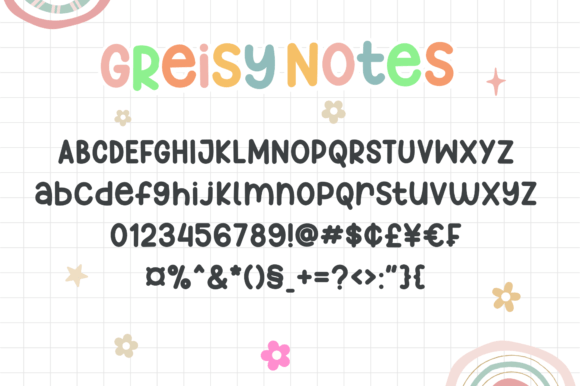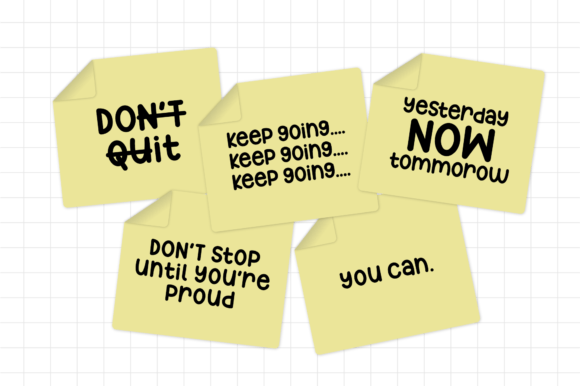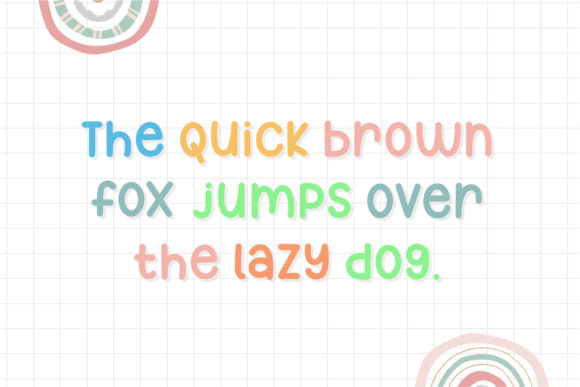
Introducing Greisy Notes Font: The Ultimate Handwritten Display Font for Designers and Crafters
Are you tired of using the same old fonts for your digital designs, crafts, and presentations? Look no further! Greisy Notes Font is here to revolutionize your creative projects with its cute and playful handwritten display style. This versatile font is perfect for a wide range of applications, from greeting cards to digital art, and is sure to become your new favorite go-to font.
What Makes Greisy Notes Font So Special?
Greisy Notes Font boasts a unique and charming handwritten style that is both modern and nostalgic. Its playful and carefree vibe makes it ideal for projects that require a personal touch. Whether you’re a designer, crafter, or simply a DIY enthusiast, this font is sure to inspire your creativity and add a touch of whimsy to your work.
Perfect for Various Projects
Greisy Notes Font is an incredibly versatile font that can be used for a wide range of projects, including:
- Crafts: Add a personal touch to your handmade crafts, such as scrapbooking, card making, and journaling.
- Digital Design: Use Greisy Notes Font to create stunning digital art, social media graphics, and blog posts.
- Presentations: Make your presentations stand out with this unique and engaging font.
- Greeting Cards: Create beautiful and heartfelt greeting cards for special occasions.
Why Choose Greisy Notes Font?
So, why should you choose Greisy Notes Font for your next project? Here are just a few reasons:
- Unique Style: Greisy Notes Font has a one-of-a-kind handwritten style that will set your projects apart from the rest.
- Ease of Use: This font is easy to read and works well in both digital and print formats.
- Flexibility: Greisy Notes Font can be used for a wide range of projects, from formal to informal.
- Fun and Playful: This font adds a touch of whimsy and fun to any project, making it perfect for creative and playful designs.
Tips for Using Greisy Notes Font
To get the most out of Greisy Notes Font, here are a few tips to keep in mind:
- Pair with Other Fonts: Experiment with pairing Greisy Notes Font with other fonts to create a unique and visually appealing design.
- Use in Headings: Use Greisy Notes Font in headings and titles to add a touch of personality to your designs.
- Experiment with Colors: Try out different colors and color combinations to add depth and interest to your designs.
| Font Name | Greisy Notes Font |
| Author | Hayletter Creative |
In conclusion, Greisy Notes Font is a versatile and charming handwritten display font that is perfect for designers, crafters, and DIY enthusiasts. Its unique style, ease of use, and flexibility make it an excellent choice for a wide range of projects. Whether you’re looking to add a personal touch to your crafts, create stunning digital art, or make your presentations stand out, Greisy Notes Font is sure to become your new favorite go-to font.